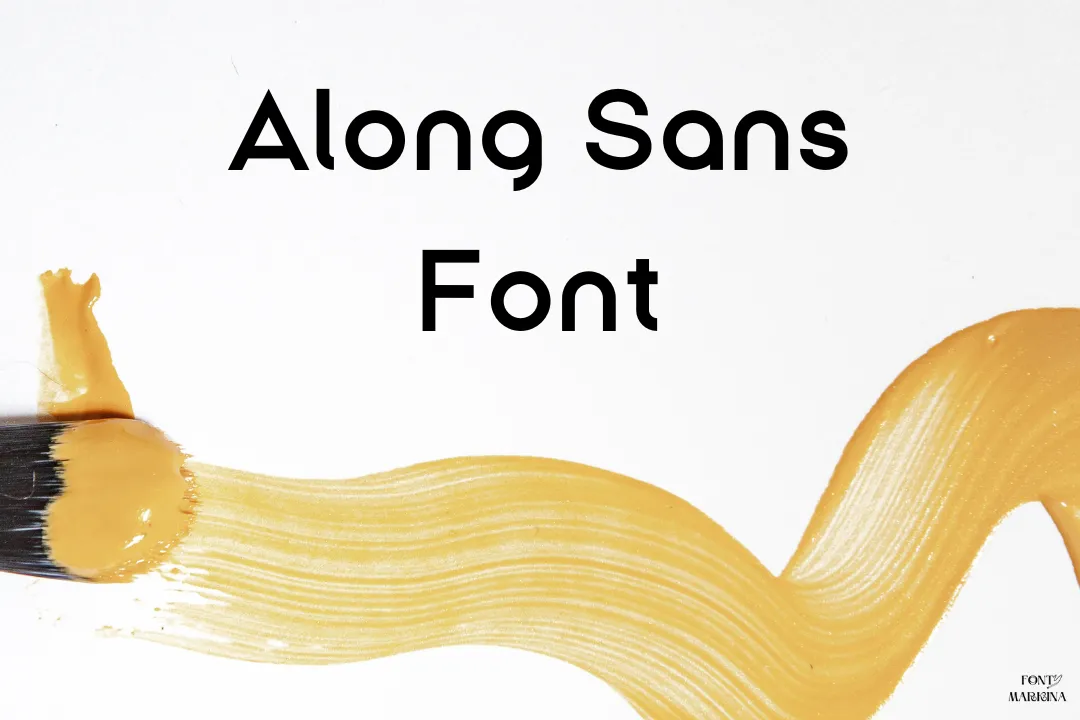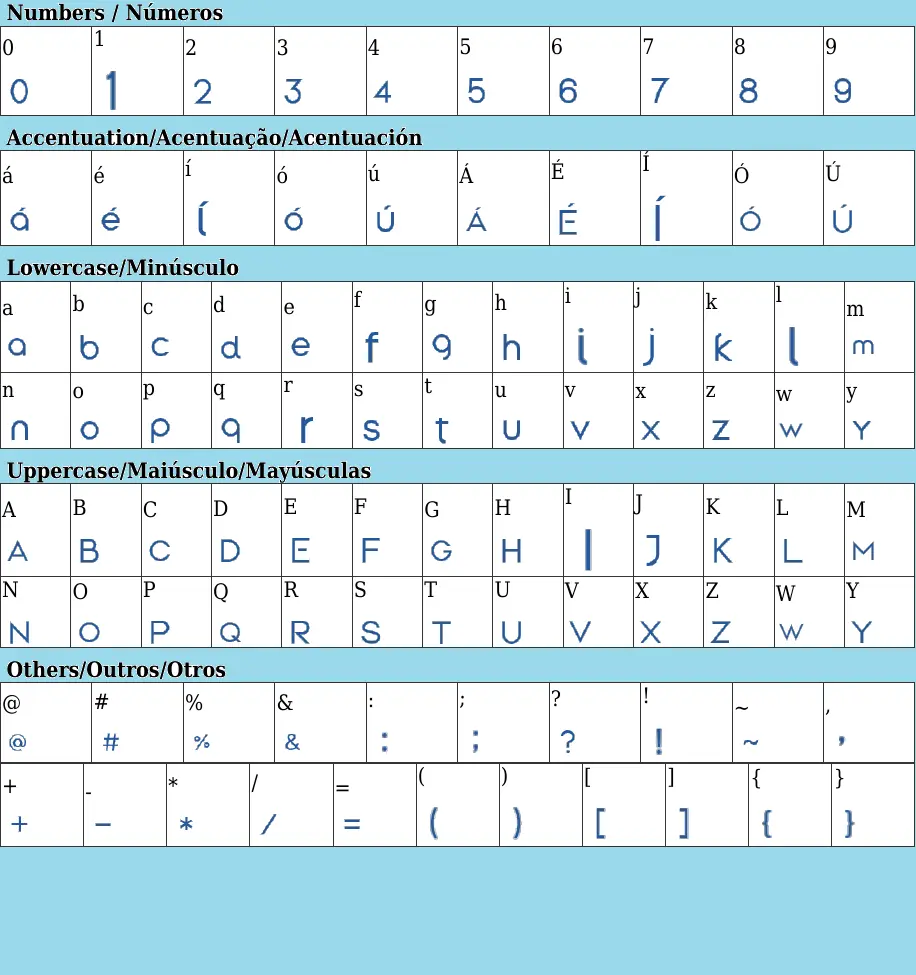
Along Sans Font
Along Sans Font is a unique and universal font family designed by Ryul Davidson and published by Brenners Template. With its modern aesthetic and diverse range of styles, Along Sans offers designers a powerful toolkit for creating visually unique designs across various mediums.
The font family consists of eighteen styles, blending elements of both display sans and sans-serif typography to provide flexibility and adaptability in design applications.
One of the most well-known facilities is that it comes in 34 progressive ligatures and a lot of glyphs. It is best for Adobe, Canva, and other agendas.  Arciform sans font is an alternative to this family.
Its cute curves make it more classic. Also, you can use the generator tool of this family to convert simple designs to colorful ones. You can download and utilize it in your projects.
Uses of Along Sans Font
This font is well-suited for a wide range of design projects, including branding, advertising, editorial design, web design, and more. Its modern and clean appearance makes it ideal for conveying a sense of professionalism and sophistication, while its diverse styles allow for creative experimentation and customization.
Whether used for headlines, body text, or graphic elements, it adds a touch of stylish elegance to any design. Its versatility and readability ensure that it remains effective across various platforms, from print to digital media.
This texture is famous for use in the titles of various products and amazing logos. All experts use this family for their related field projects. It is commonly used for transport systems. It is very effective for secret tasks. This marvelous family is immaculate for any type of business chore.
You can use its similar bariol font by making a strong pairing. All over the globe designers remain in search of this family. In the field of web design, it is well-suited. Moreover, this texture is used for book covers, signs, pennants, different types of cards, and much more.
What type of style is closest to the Along Sans typeface?
A unique look and beautiful style known as the aqua grotesque font is the perfect alternative texture to this famous typeface.
What kind of typeface is Along Sans texture?
This is a brilliant sans serif texture that was established by Brenners Template for the first time.